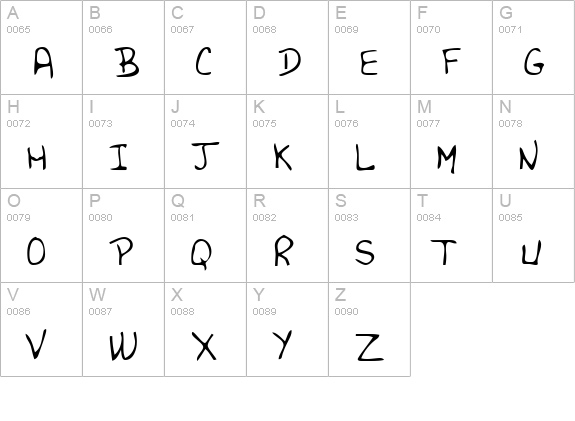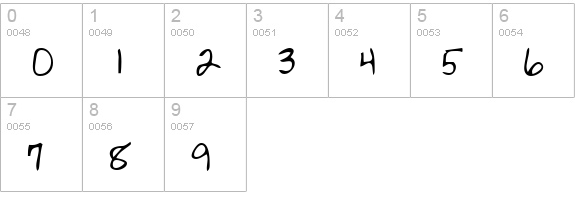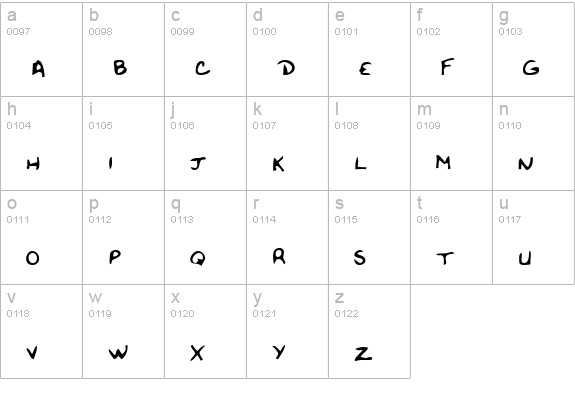
LestersHand Regular Font Details
LestersHand Regular is the standard, neutral variant in the LestersHand typeface family \xE2\x80\x94 well suited to general body text, paragraphs, and standard typographic work.
LestersHand Regular is a charming and versatile font that exudes a playful and handcrafted feel. Its carefully hand-drawn letterforms are infused with a delightful irregularity, adding a touch of whimsy to any design project. This font is perfect for adding a personal touch to invitations, greeting cards, posters, and more. Its casual yet legible letterforms make it suitable for both headlines and body text, ensuring that your message is conveyed with clarity and style. LestersHand Regular is freely available to download at FontsMarket.com, making it easily accessible for designers and enthusiasts alike. Whether you're a professional graphic designer or simply looking to add a unique touch to your personal projects, this font is an excellent choice. With its generous character set, LestersHand Regular offers a wide range of glyphs, including uppercase and lowercase letters, punctuation marks, numerals, and special characters. Its versatility allows for endless creative possibilities, from adding a handwritten touch to digital designs to bringing a sense of warmth and authenticity to printed materials. The smooth curves and organic shapes of LestersHand Regular make it a visually pleasing font that captures the essence of handwritten calligraphy. Its slight imperfections add a human touch, evoking a sense of warmth and approachability. Whether you're designing for a wedding invitation, a children's book, or a brand identity that requires a touch of whimsy, LestersHand Regular is the perfect choice. Its free availability at FontsMarket.com ensures that you can easily incorporate this delightful font into your design arsenal, adding a touch of personality and charm to your creations.